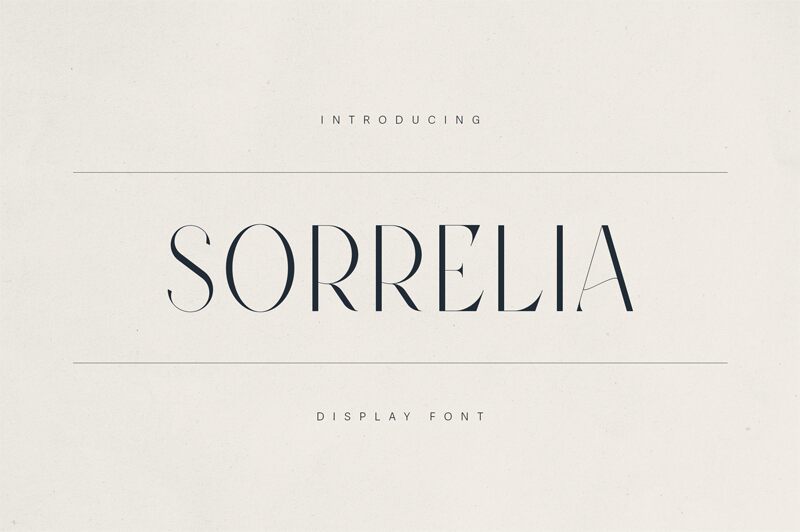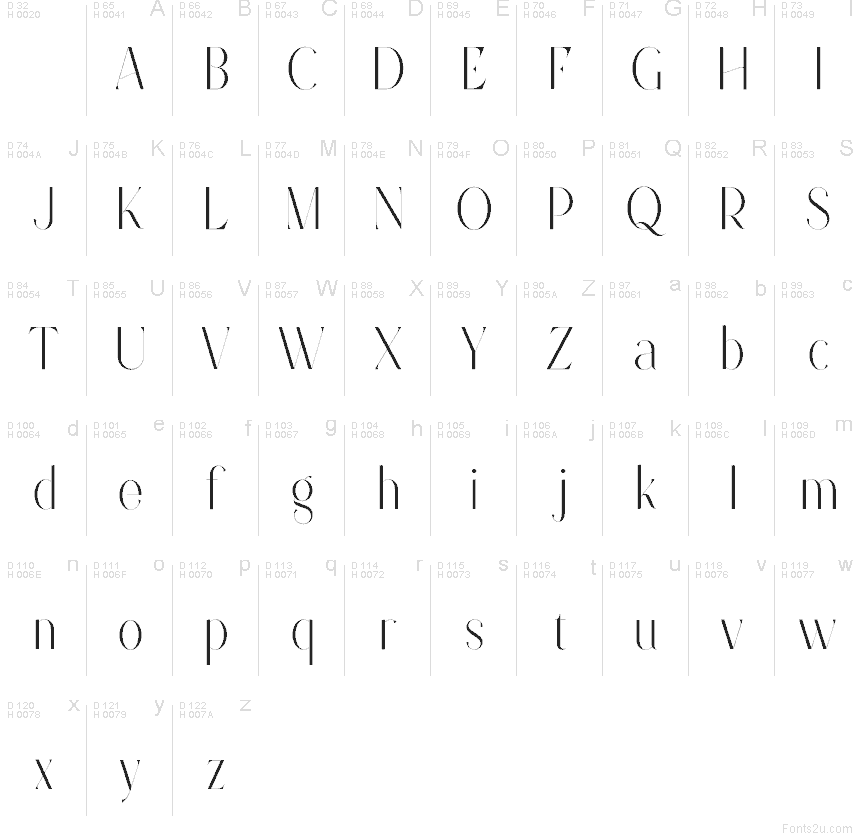
Sorrelia Demo Regular
Sorrelia font by VPcreativeshop is a free serif font that turns minimal strokes into something dramatic and luxurious. Its letters are tall and slender, with whisper-thin lines that feel like they’ve been drawn with a fine ink pen on smooth paper. Sharp curves and elongated forms give Sorrelia a runway attitude—refined, a little daring, and instantly memorable without shouting.
Using Sorrelia, your headlines gain that editorial, fashion-mag shine that’s hard to fake with more conventional serifs. This free font works beautifully for beauty and perfume branding, upscale logos, magazine covers, invitations, posters, and luxe packaging. Keep it large so those delicate details stay crisp, and pair Sorrelia with a simple geometric sans serif for body text to let its elegant shapes stay in the spotlight.